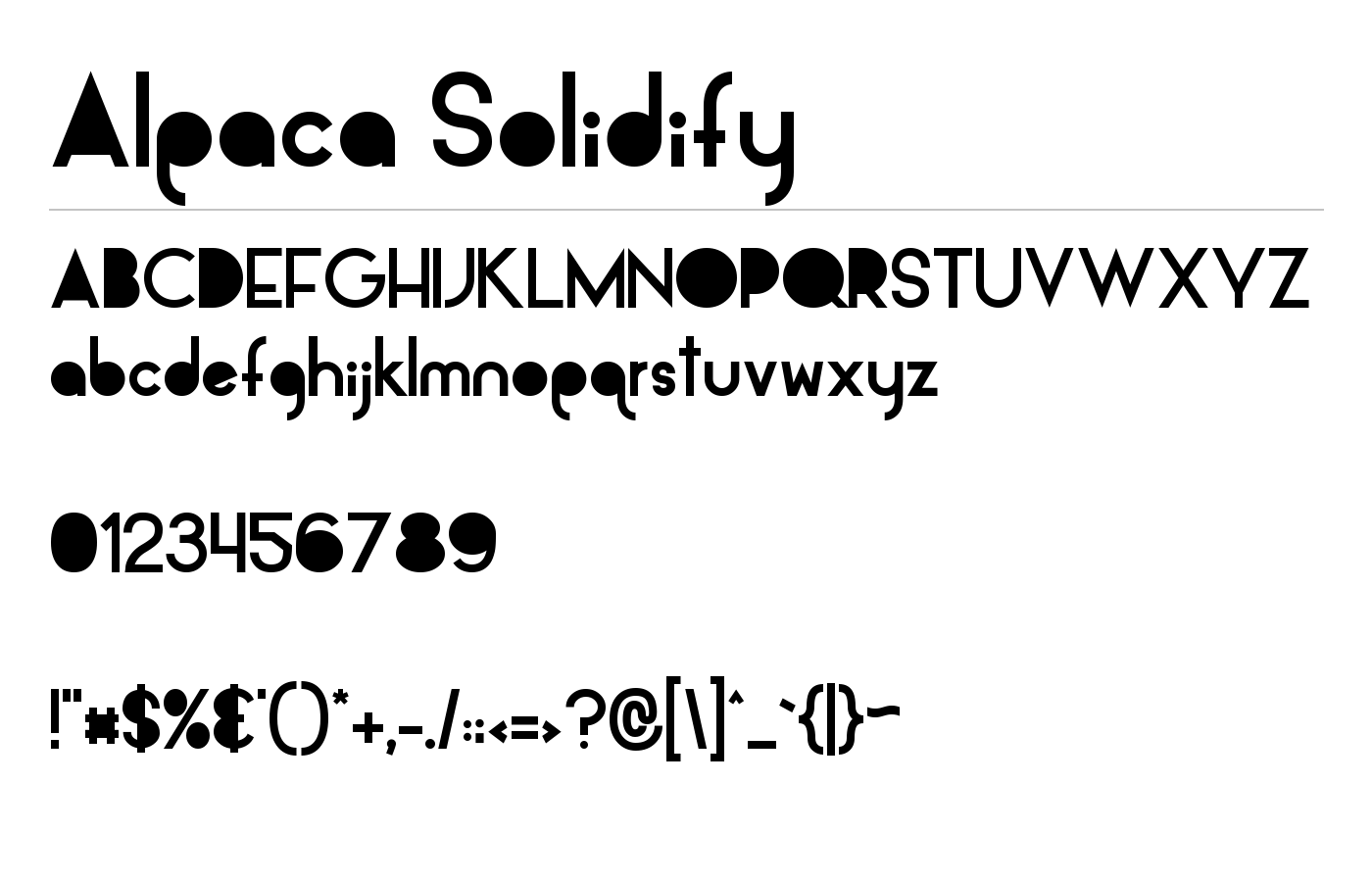
Alpaca Solidify is a bold, geometric sans serif font with a playful and modern character. Its solid shapes and unique letterforms—such as the rounded counters and distinctive tails—give it a strong, eye-catching presence ideal for logos, headlines, and creative branding projects. This font works well where a stylish, contemporary feel with a touch of whimsy is desired.
Alpaca Solidify Font